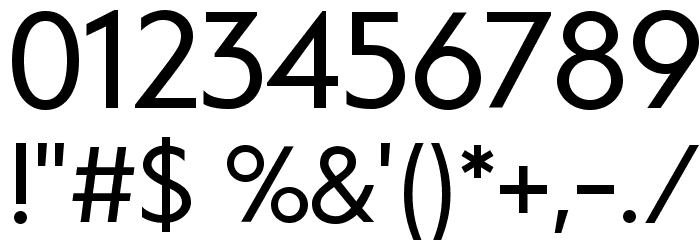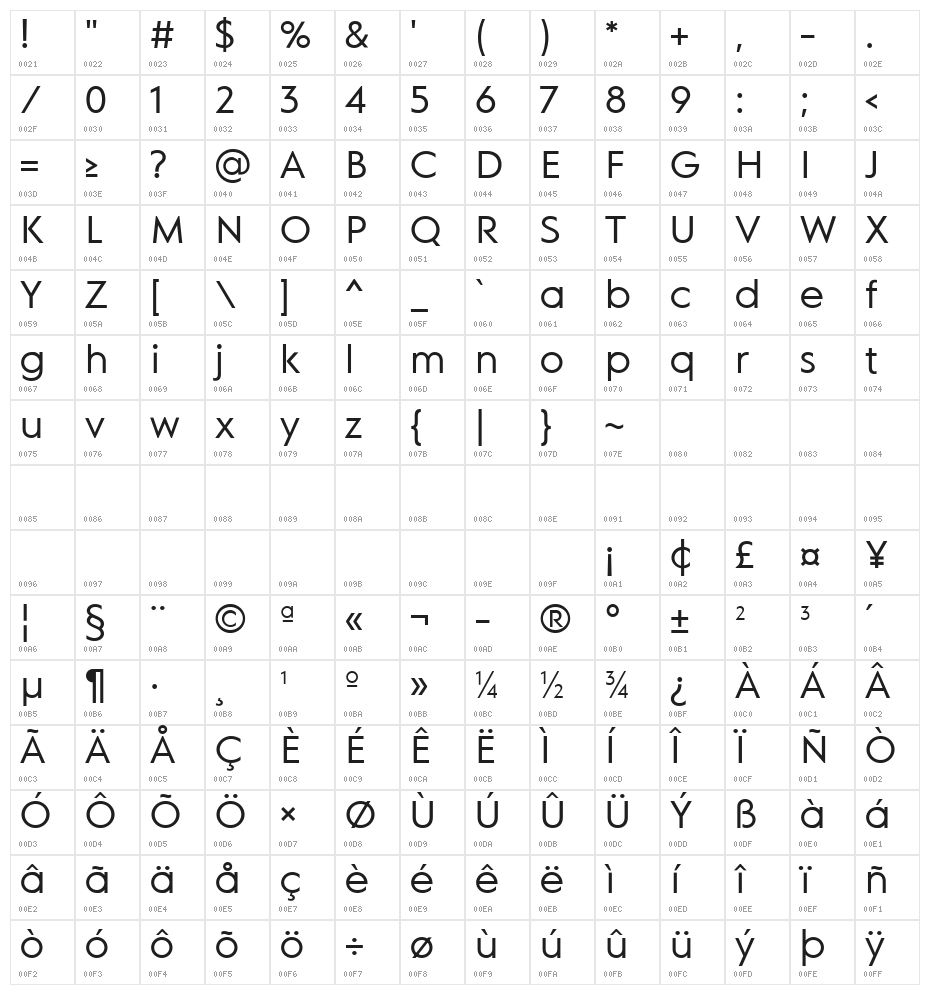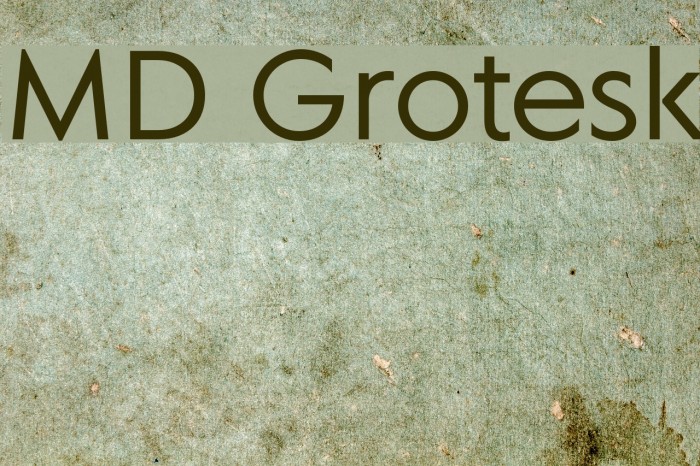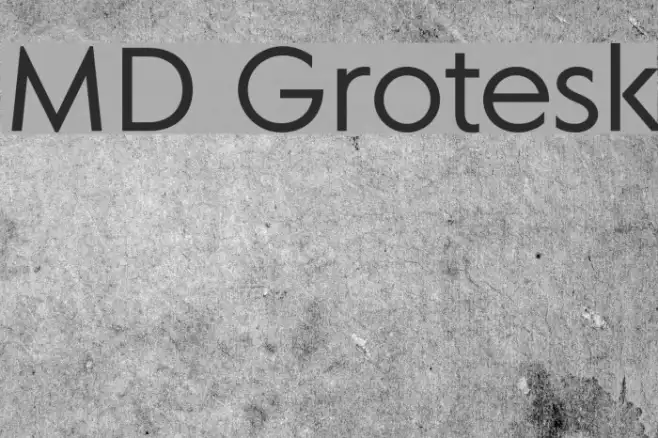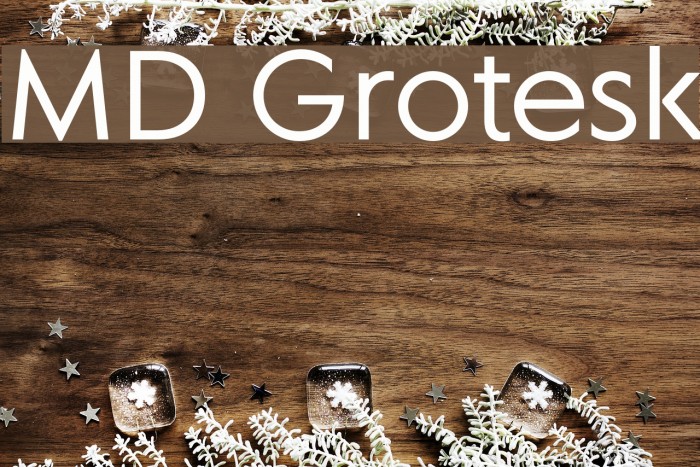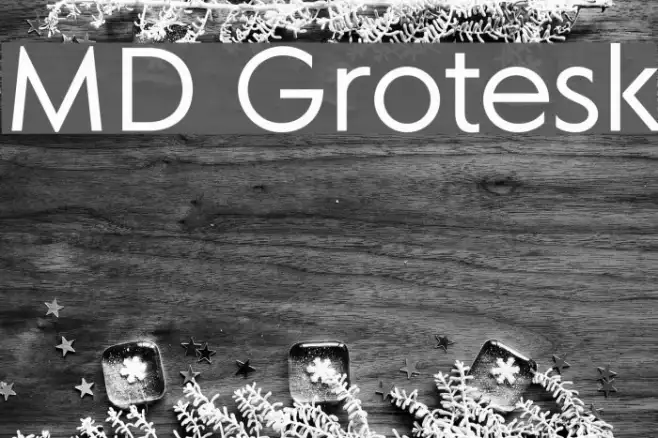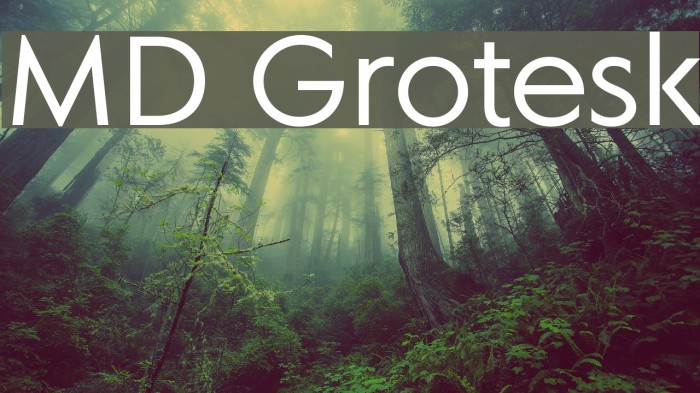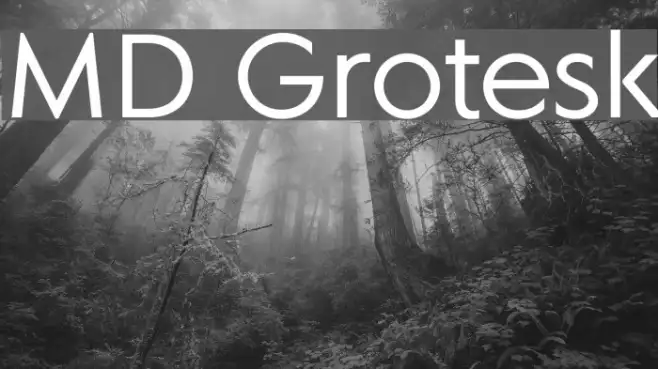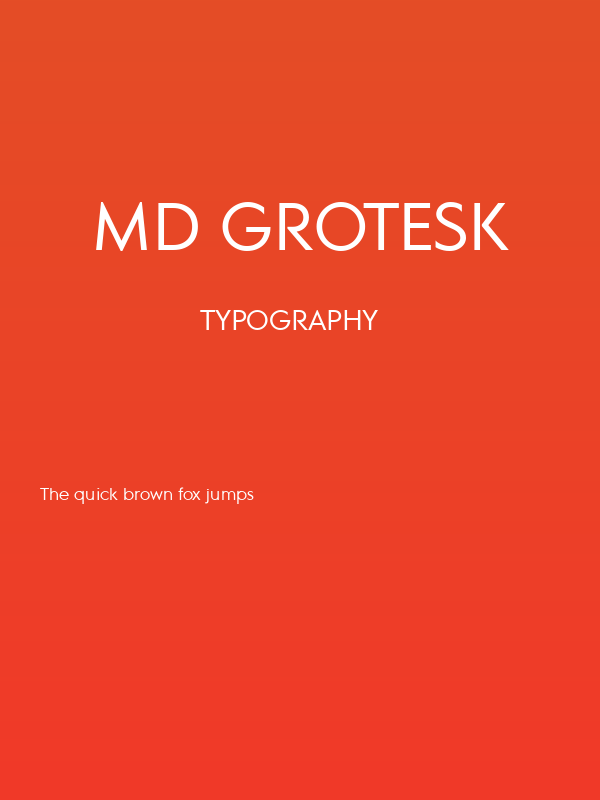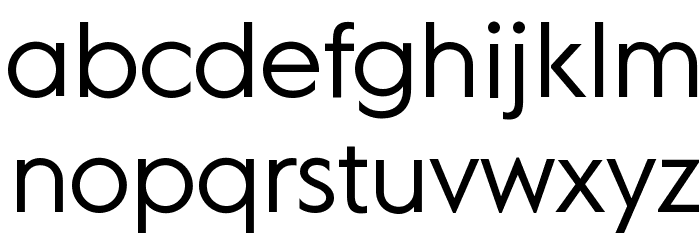
MD Grotesk Font
MD Grotesk Description
This font features a clean and modern sans-serif design, characterized by its geometric shapes and uniform stroke widths. The uppercase letters are bold and assertive, while the lowercase letters maintain a friendly and approachable appearance. The numerals are clear and easily readable, making them suitable for various applications. The special characters are well-integrated, ensuring consistency across different text elements. Overall, this font exudes a contemporary and professional vibe, making it versatile for both digital and print media.